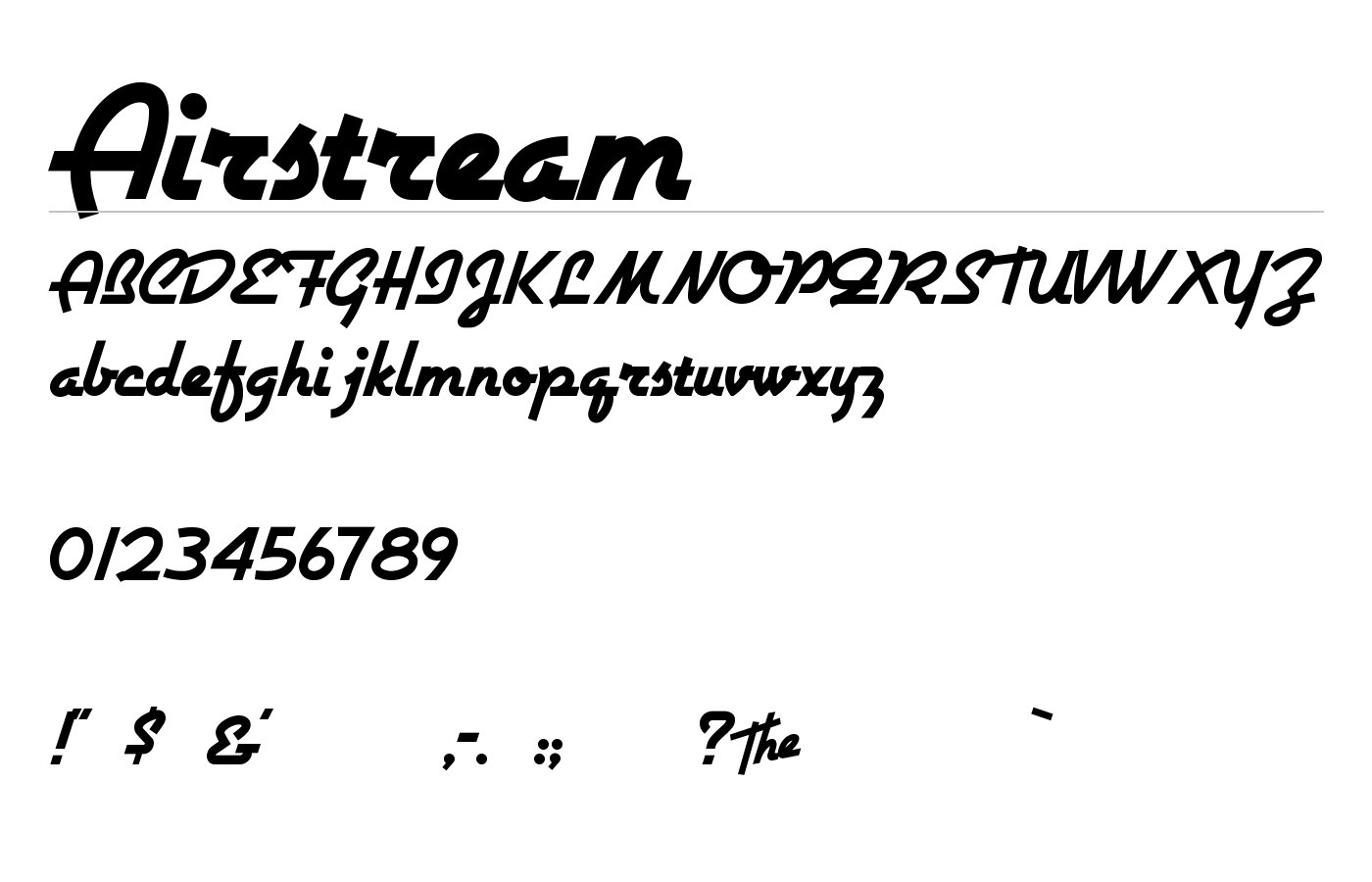
Airstream is a bold, compressed script font with a vintage flair, characterized by its smooth, flowing lines and moderate contrast between thick and thin strokes. Its unique letterforms, combining single and double-story shapes with a slight slant, evoke a sense of dynamic movement and retro charm, making it ideal for logos, headlines, and branding that seek a nostalgic yet energetic feel. This font works especially well in fashion, automotive, and lifestyle contexts where a stylish, distinctive voice is desired.
Airstream Font